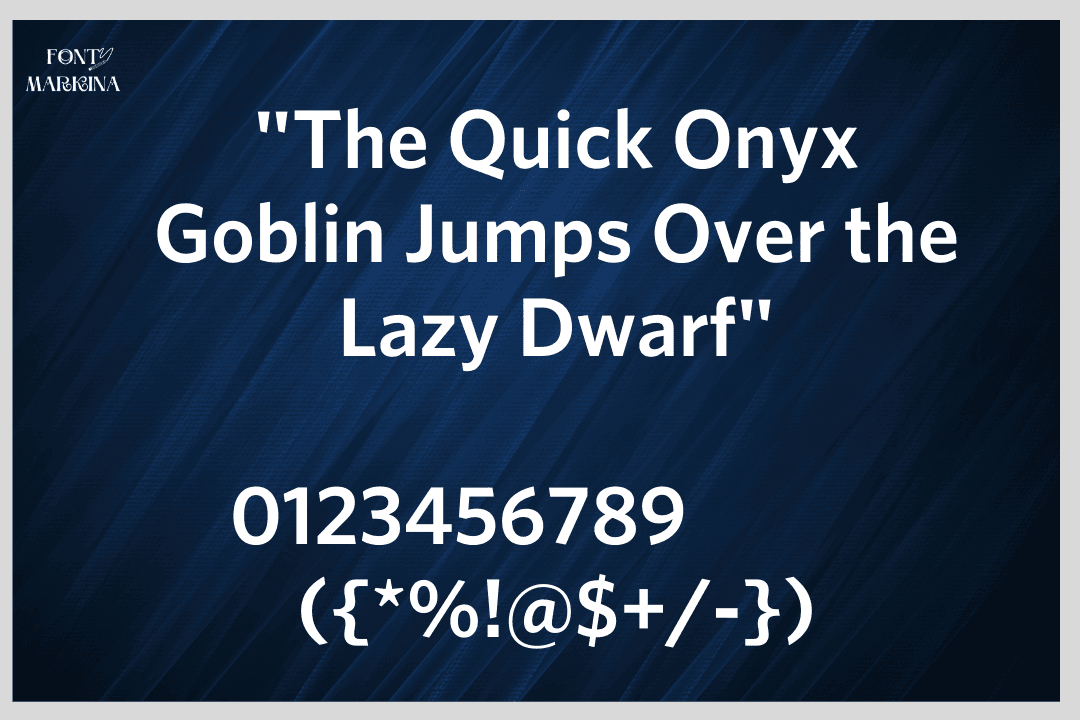
Whitney Semibold Font
The Whitney Semibold font was created by American-type designer Tobias Frere-Jones and looks like a humanistic sans serif typeface family. It was founded by Hoefler & Frere-Jones in 2004.
If You want to increase the prominence of your designs then the Whitney Semibold Font is the perfect choice because the basic elements of this texture are great and have traditional typography.
This font is also known as the name of Whitney’s bold font. It comes in four unique classes and strong highlights. Applying Bold Italic, Bold, and Regular. Explore the quick surface for it in the texture map images we connect along.
Uses of Whitney Semibold Font
The Whitney Semibold Font has a unique and neat texture, You can use it for multiple methodologies. According to its awesome font styles, it is perfect for flags, standard designs, websites, wedding cards, and many other projects.
This typeface has greater pairing quality, you can easily pair it with nimbus sans font and get an awesome result.
What font does Whitney Semibold Font use?
The Whitney Semibold font was created by American-type designer Tobias Frere-Jones and looks like a humanistic sans serif typeface family. It was founded by Hoefler & Frere-Jones in 2004.
Is Whitney Semibold Font a Webfont?
What fonts are similar to Whitney Semibold Font?
The Whitney Semibold texture is similar to numerous fonts such as Today sans font, Adelle sans font, and FF din font. You can use it in all your fun projects and tasks.